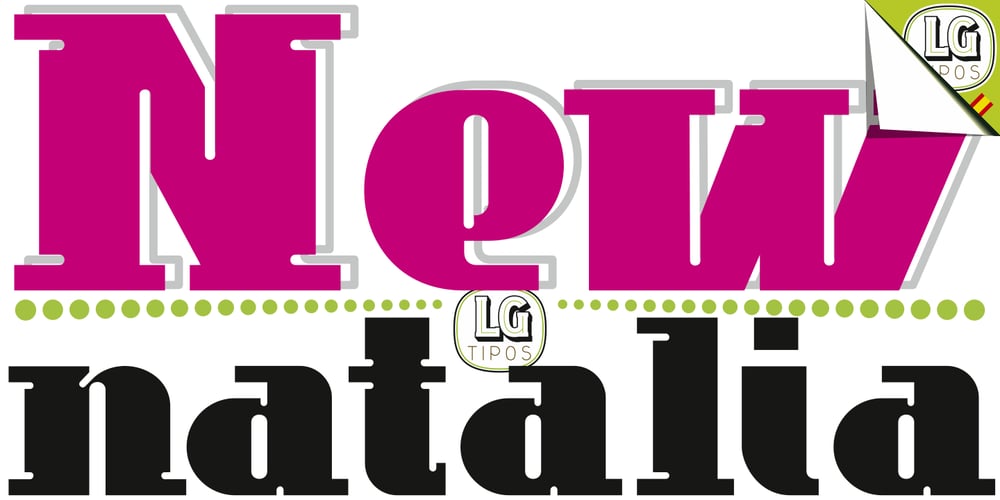
Natalia MLG
Natalia MLG font
Natalia MLG Font Family was designed by Manuel Lage and published by LGF Fonts. Natalia MLG contains 1 styles and family package options. Natalia font, is an original type by Manuel Lage, inspired by the Doric column bases. Its heavy appearance is lightened by the erosion of the serif pieces. It is a typeface with a rigid and compact stroke.